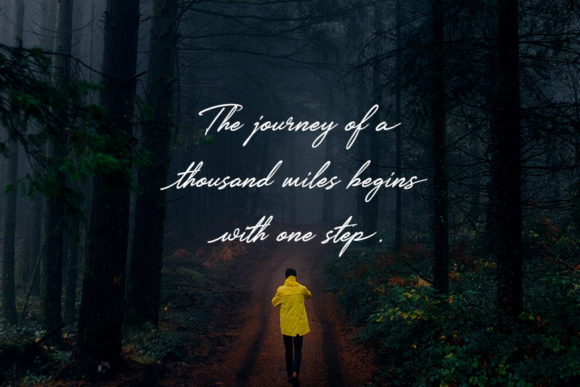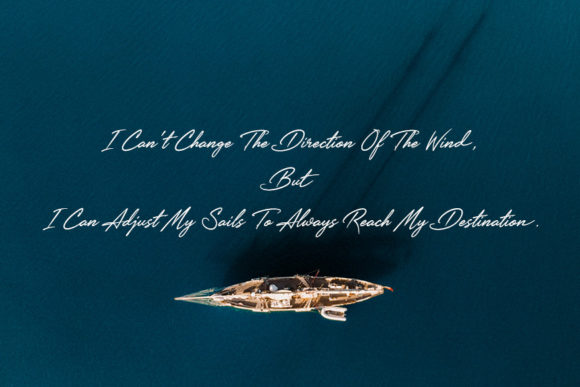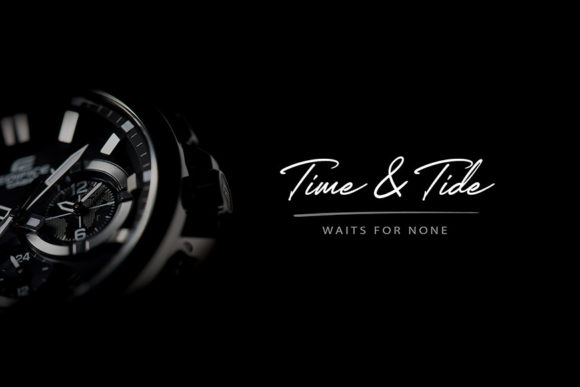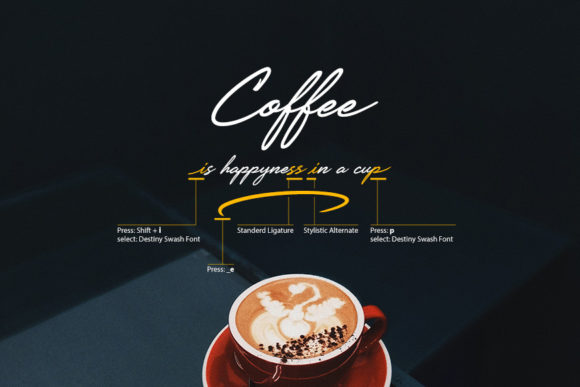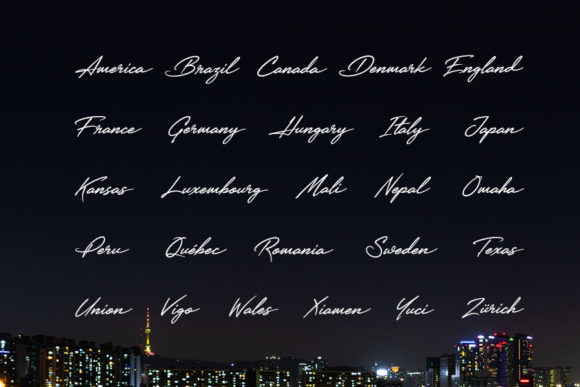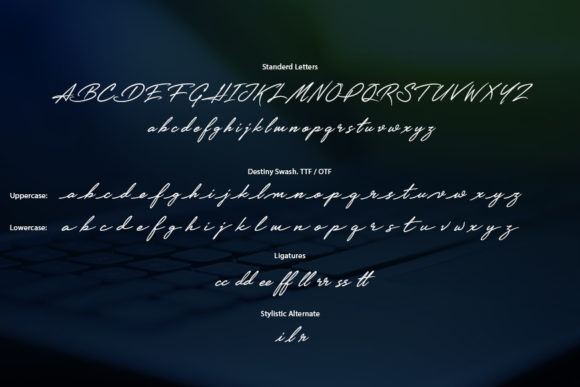
Introducing Destiny Font: Elevate Your Design with Luxury and Elegance
In the world of typography, fonts play a crucial role in conveying the tone and personality of a brand or design. For designers and crafters looking to add a touch of luxury and sophistication to their work, the Destiny Font is an excellent choice. This stunning script font is designed to make a statement, perfect for a wide range of applications, from product packaging and branding projects to magazine covers, social media graphics, and wedding designs.
The Characteristics of Destiny Font
Destiny Font is characterized by its slim, elegant lines and luxurious feel. Its unique design makes it stand out from other script fonts, offering a distinctive look that can elevate any design project. The font’s sleek appearance is balanced by its readability, making it versatile for use in various contexts, from large headlines to smaller body text.
Key Features of Destiny Font
- Luxurious and Slim Charactered: The font’s slim lines give it a luxurious and high-end feel, perfect for designs that require a touch of elegance.
- Script Font: As a script font, Destiny adds a personal and artistic touch to any design, making it ideal for projects where personality and style are key.
- Versatile: From product packaging to digital media, Destiny Font can be used across a variety of platforms and applications.
- Elegant and Sophisticated: Its elegant design ensures that your work stands out, giving it a sophisticated look that’s sure to impress.
Use Cases for Destiny Font
The versatility of Destiny Font makes it suitable for a wide range of design projects. Here are some of the most popular use cases:
- Product Packaging: Add a touch of luxury to your product packaging with Destiny Font. Its elegant design ensures that your products stand out on store shelves.
- Branding Projects: For brands looking to convey a sense of sophistication and elegance, Destiny Font is an excellent choice. It can be used in logos, marketing materials, and more.
- Magazine Covers: Grab the attention of readers with a stunning magazine cover featuring Destiny Font. Its luxurious feel makes it perfect for fashion, lifestyle, and luxury publications.
- Social Media Graphics: Elevate your social media presence with graphics that feature Destiny Font. It’s a great way to add a professional touch to your posts and stories.
- Wedding Designs: For wedding planners, designers, and couples looking for a unique and elegant font for their special day, Destiny Font offers a romantic and sophisticated look.
Tips for Using Destiny Font Effectively
To get the most out of Destiny Font, consider the following tips:
- Pair with Complementary Fonts: For maximum impact, pair Destiny Font with fonts that complement its elegant and luxurious feel. Sans serif fonts often create a nice contrast.
- Use for Headlines and Titles: Destiny Font is perfect for headlines and titles where you want to make a statement. Its slim lines and elegant design ensure that your text stands out.
- Experiment with Colors: While Destiny Font looks stunning in classic black and white, don’t be afraid to experiment with colors that match your brand or design theme.
Destiny Font is a luxurious and elegant script font that offers designers and crafters a versatile tool for elevating their design projects. Its slim charactered design, combined with its sophisticated feel, makes it perfect for a wide range of applications. Whether you’re working on product packaging, branding projects, magazine covers, social media graphics, or wedding designs, Destiny Font is sure to add a touch of luxury and elegance to your work.
With its unique characteristics and versatility, Destiny Font is an excellent addition to any designer’s toolkit. So why settle for ordinary when you can create something extraordinary with Destiny Font?